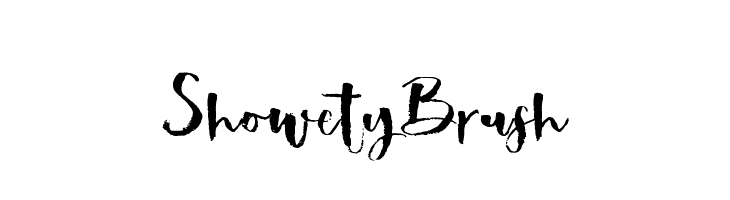
A bold, playful font with rounded edges and a friendly appearance.
A sophisticated, slanted script font with high contrast and flowing, connected characters.
A bold, expressive script font with fluid, cursive strokes and decorative flourishes.
A bold, geometric italic font with a dynamic and modern style.
A bold, geometric font with a modern, futuristic style.
A playful, marshmallow-themed decorative font with bold, shadowed characters.
A playful, handwritten font with thin, irregular strokes and a whimsical charm.
A playful, leaf-themed decorative font with bold, artistic characters.
A lively handwritten font with medium contrast and elegant slant.